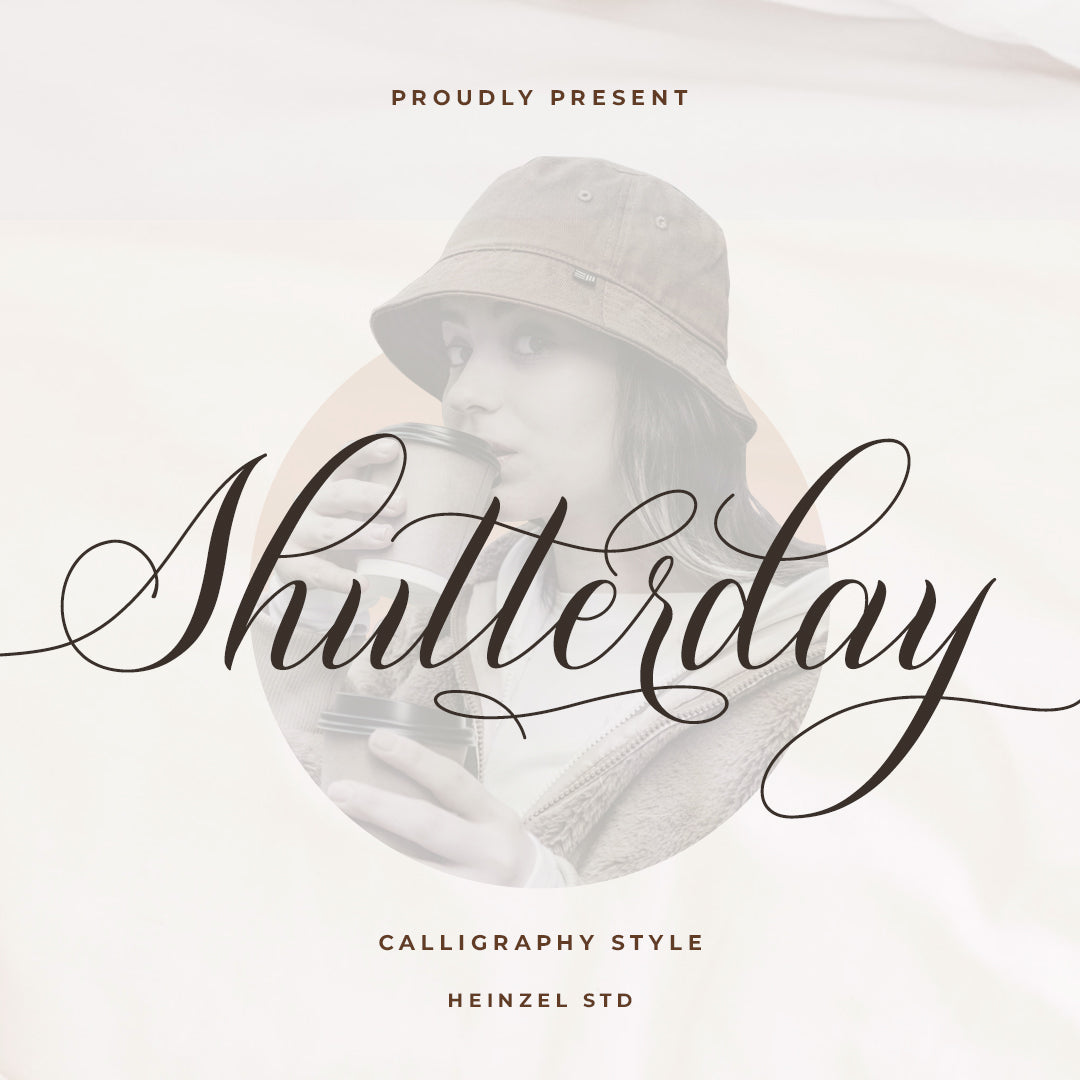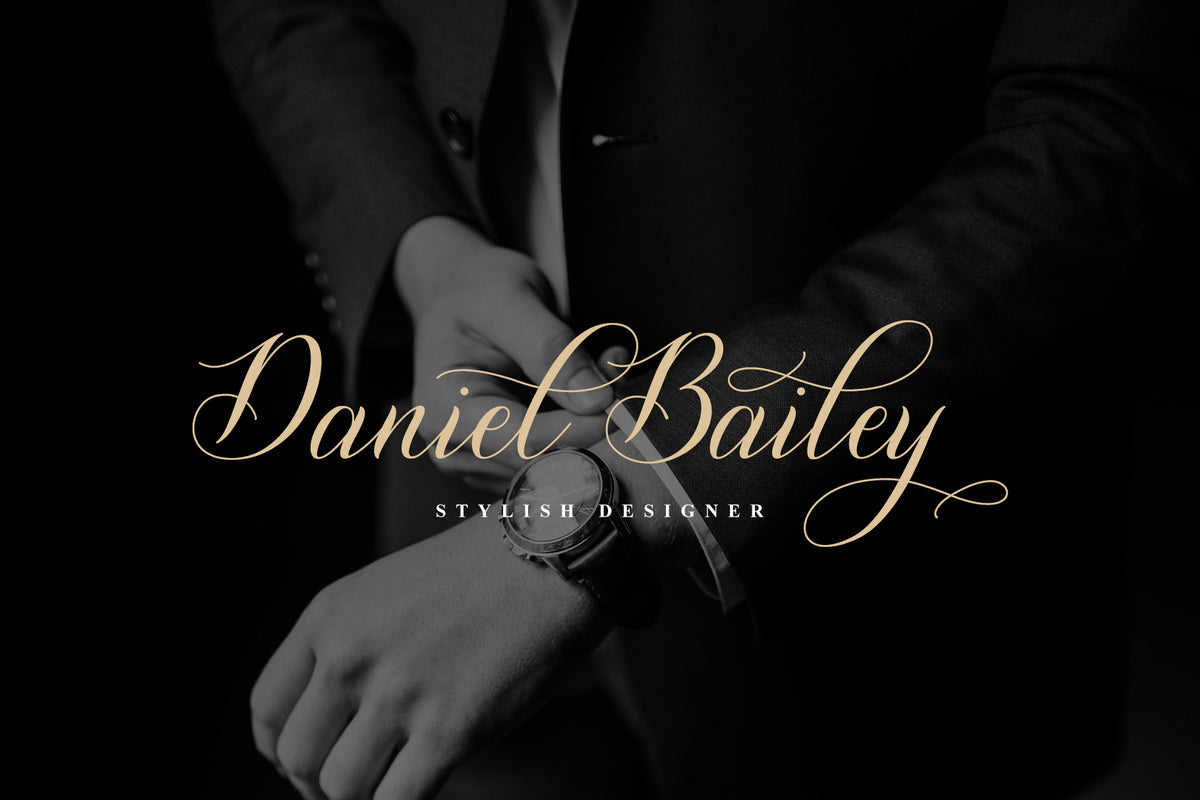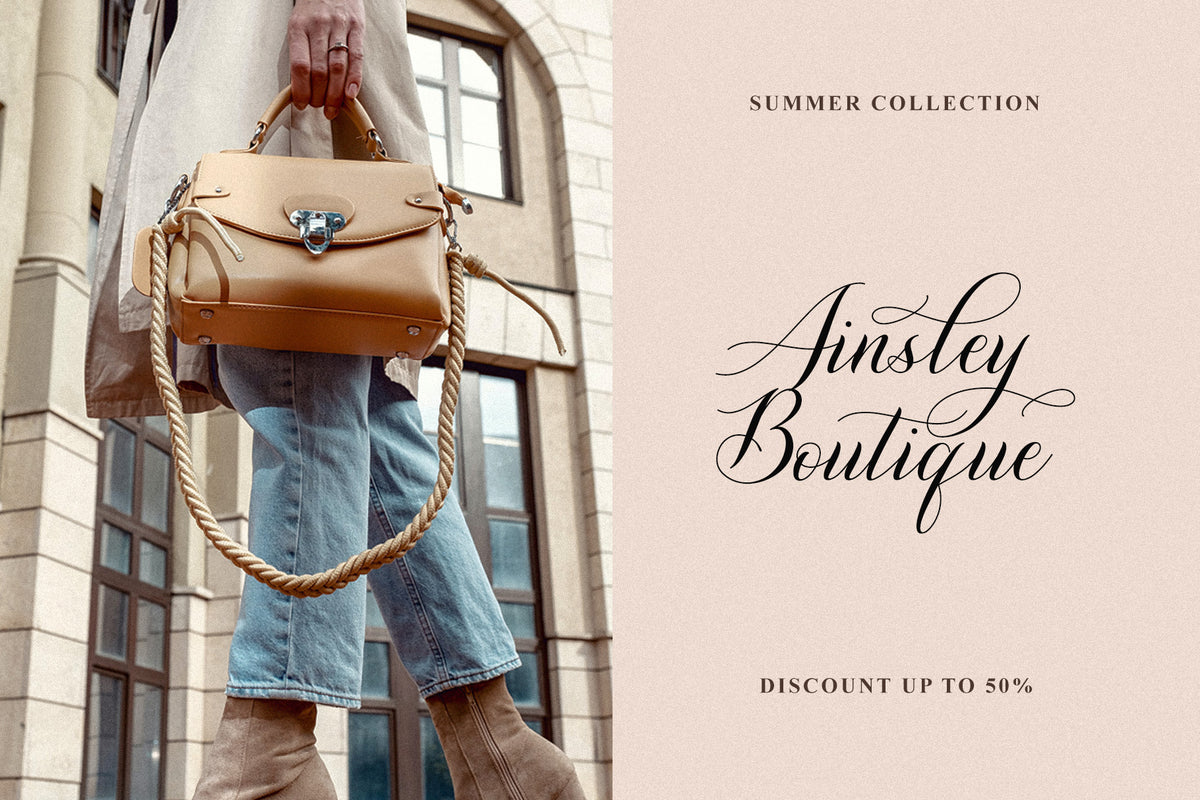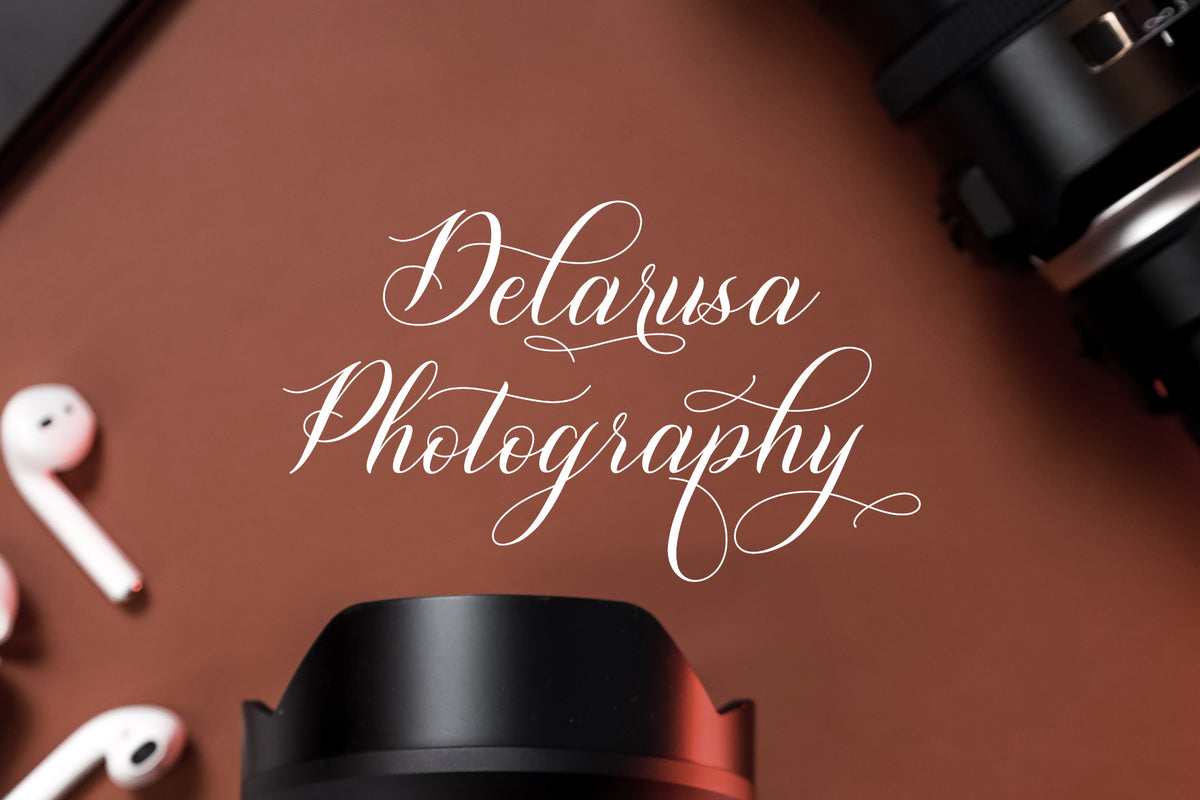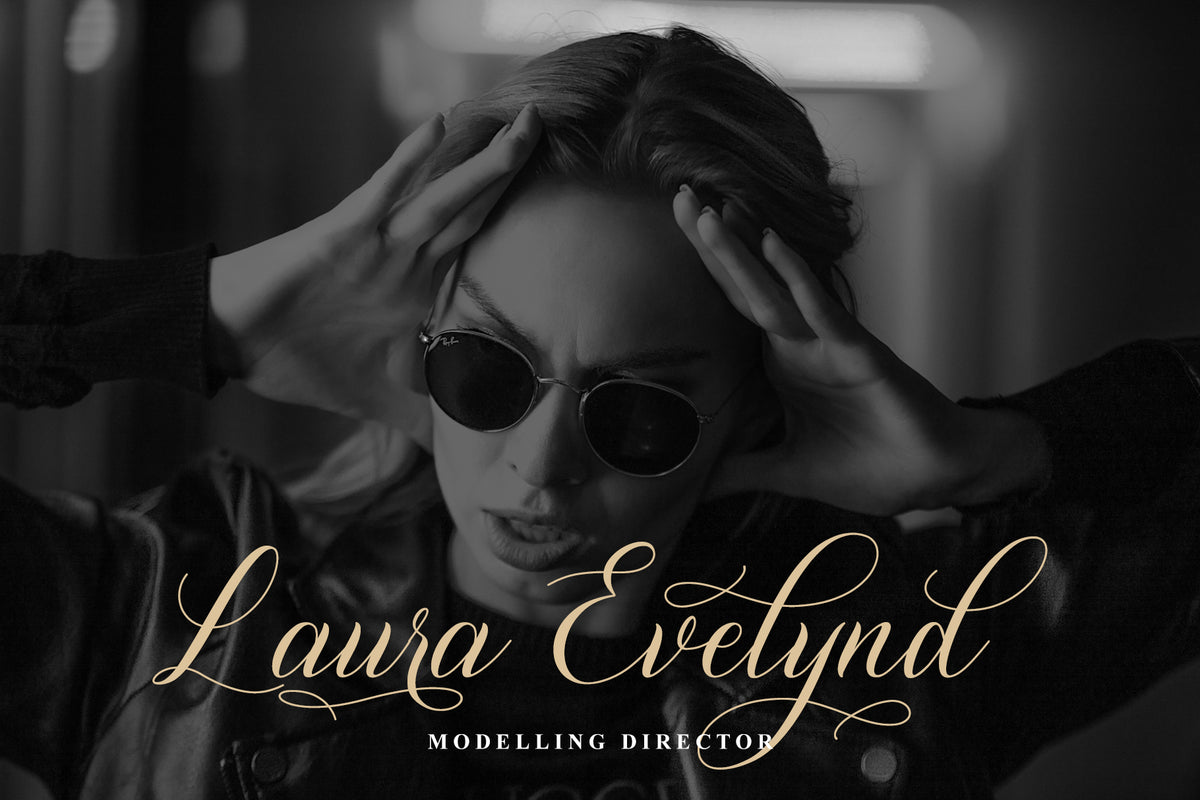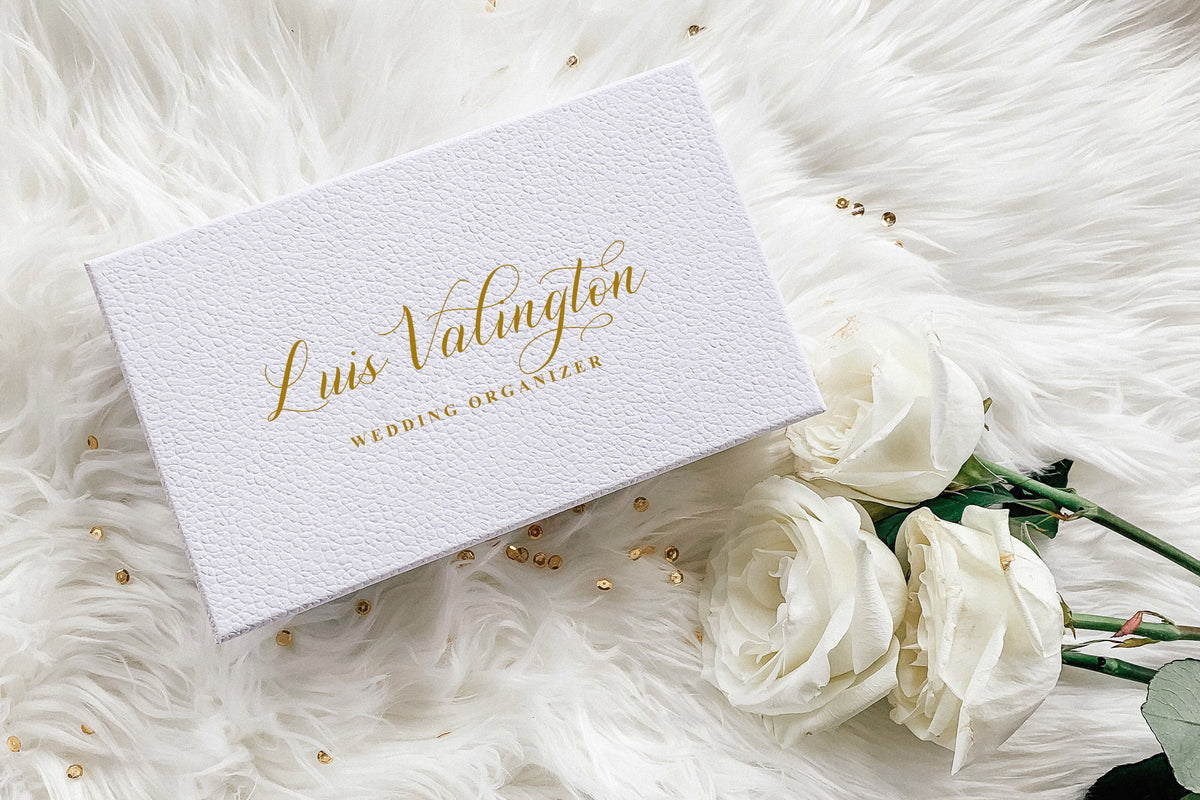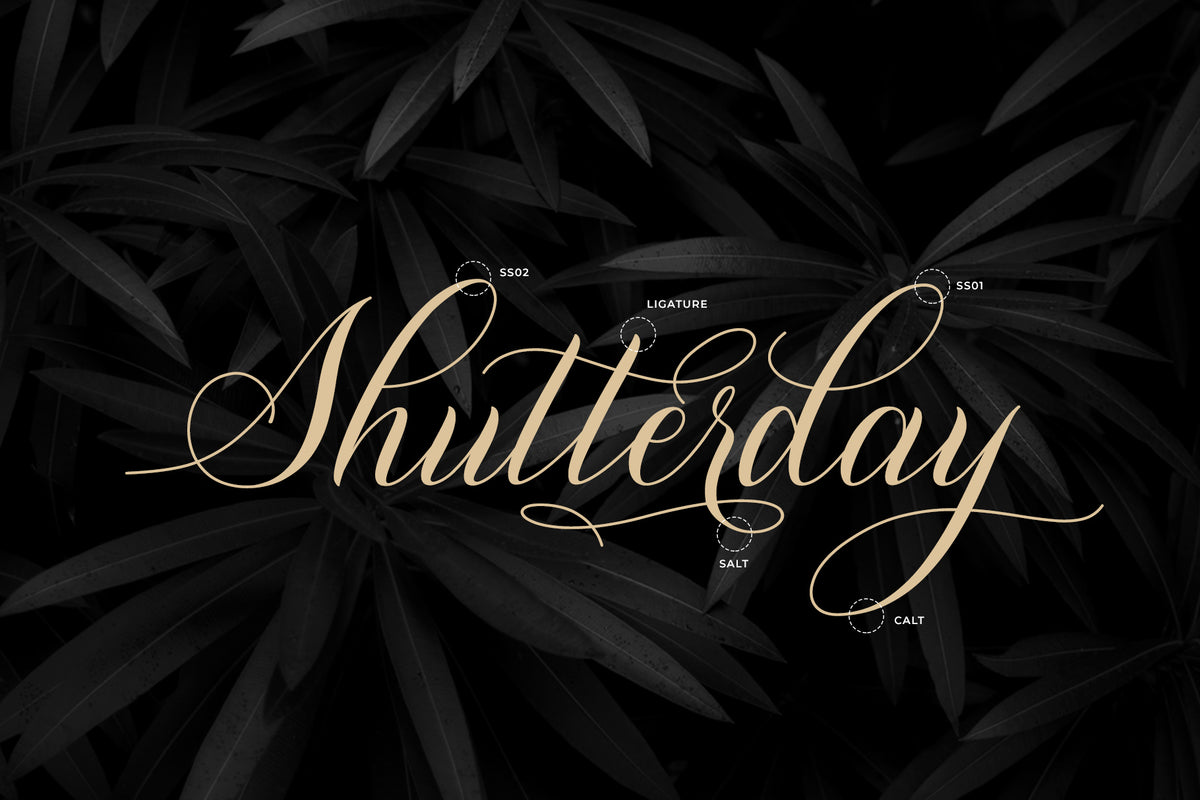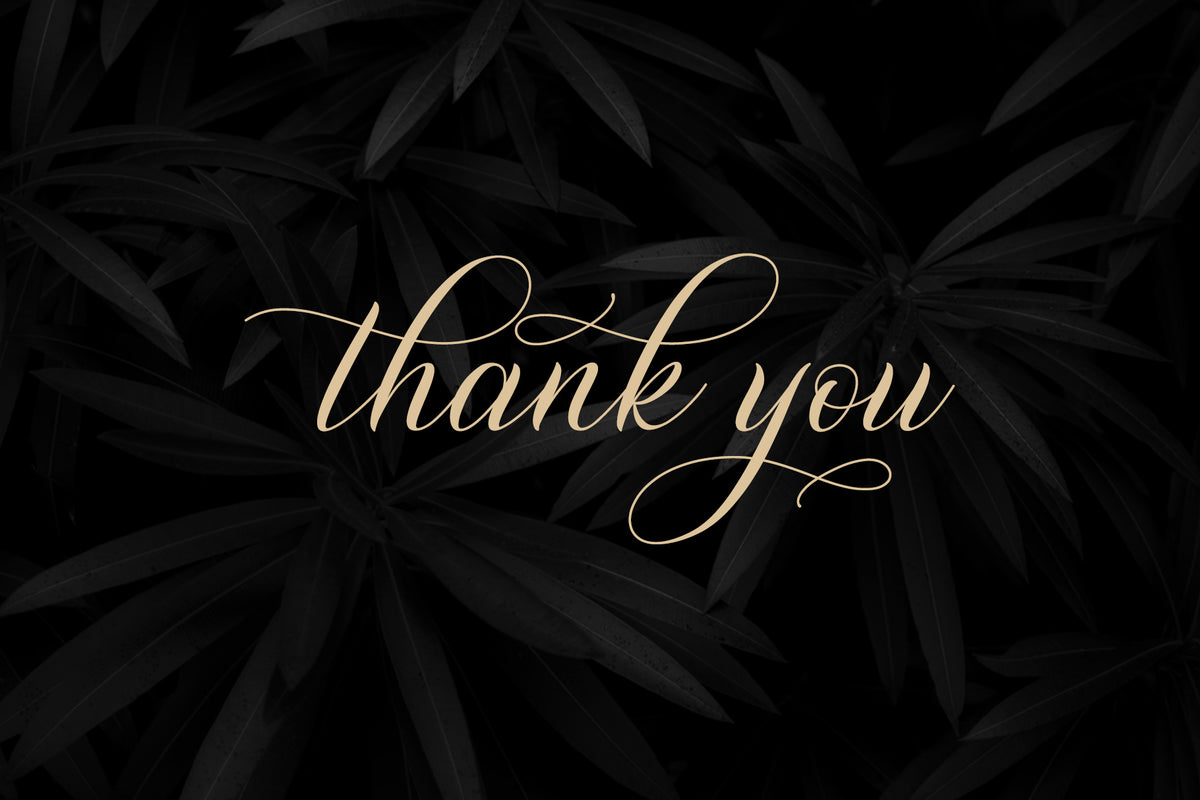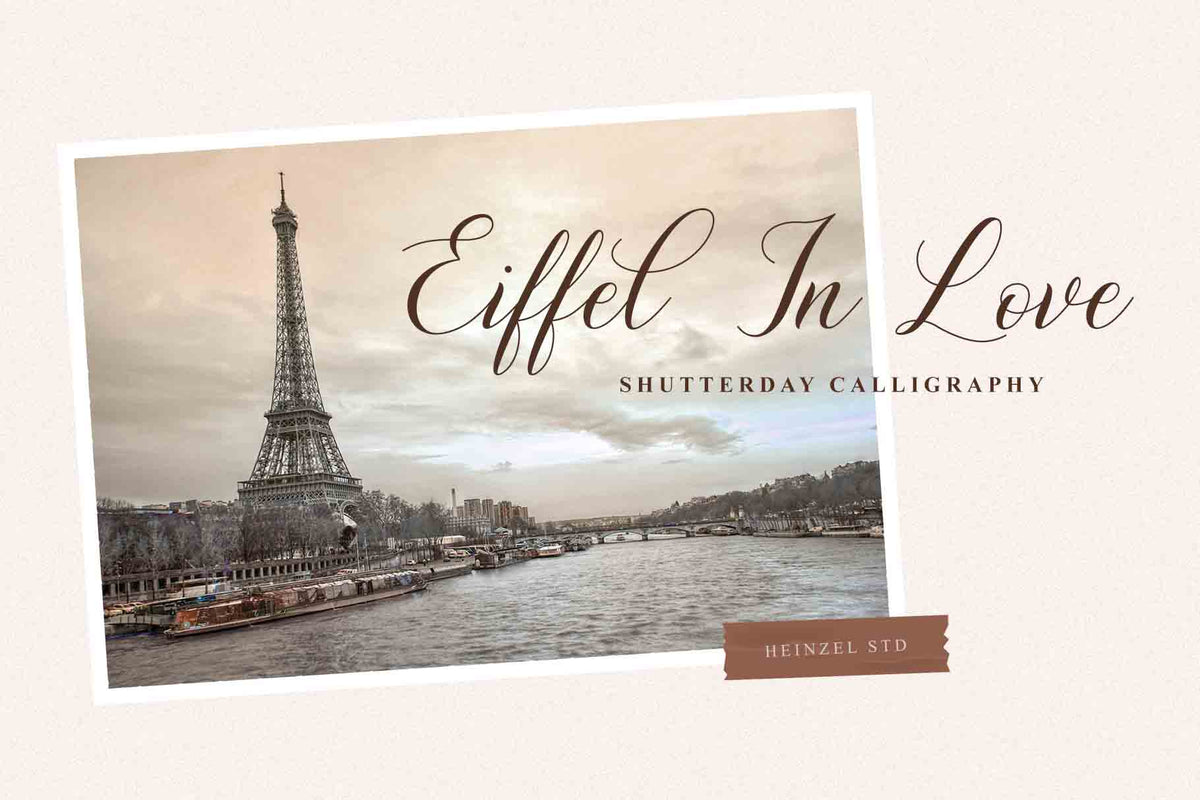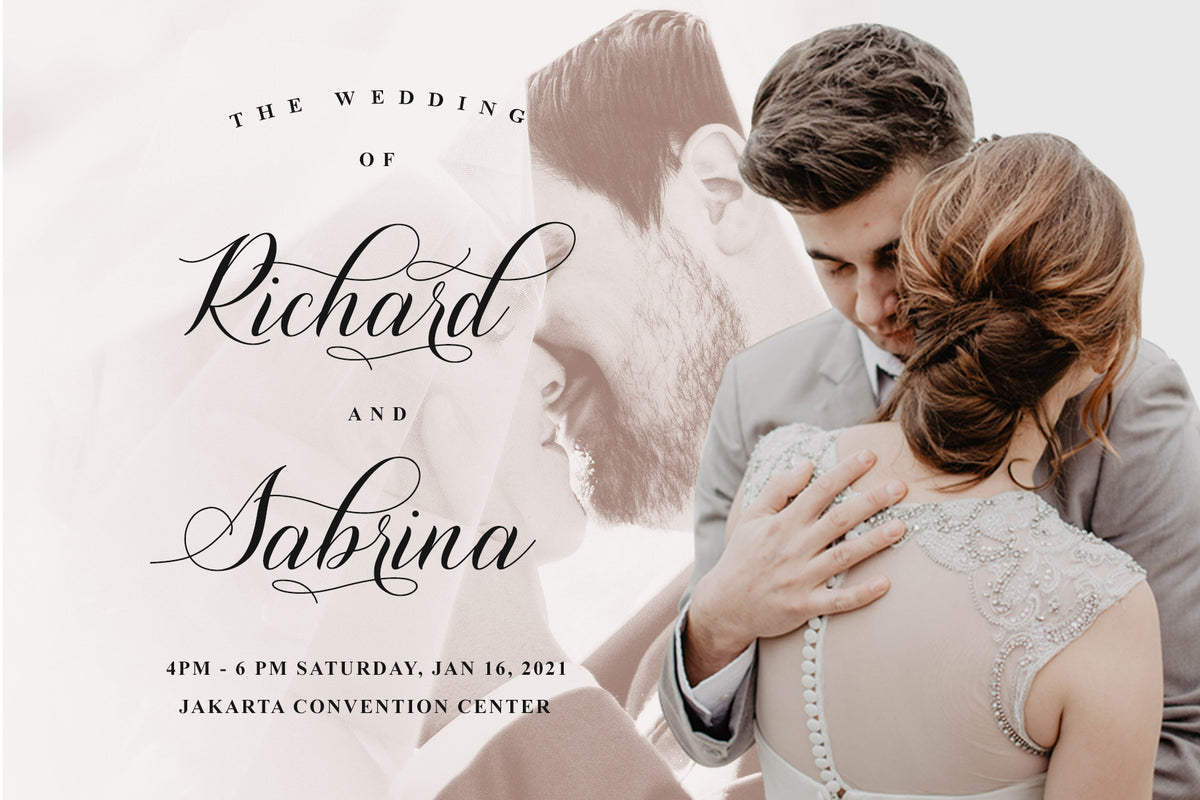
Shutterday Elegant Calligraphy Script Font
Shutterday is a sophisticated calligraphy font designed to bring elegance, beauty, and timeless charm to every creative project. Featuring flowing handwritten strokes, graceful swashes, and delicate curves, this font captures the essence of modern luxury while maintaining the authenticity of classic calligraphy.
Perfect for branding, wedding invitations, fashion editorials, logos, social media content, packaging design, beauty products, photography watermarks, and premium marketing materials, Shutterday delivers a refined and professional look. Its stylish letterforms and decorative flourishes create stunning typography that instantly attracts attention and elevates visual presentations.
Whether you're designing for a luxury brand, creating romantic wedding stationery, or crafting elegant digital content, Shutterday offers the versatility and sophistication needed to make your designs stand out. The smooth connections and artistic details provide a natural handwritten appearance, making every word feel personal, exclusive, and memorable.
Bring beauty, elegance, and creativity to your projects with Shutterday, a calligraphy font created for designers who appreciate refined typography and premium visual aesthetics.
Shutterday is a calligraphy script font featuring handwritten strokes, swashes, and curved letterforms with connected character design.